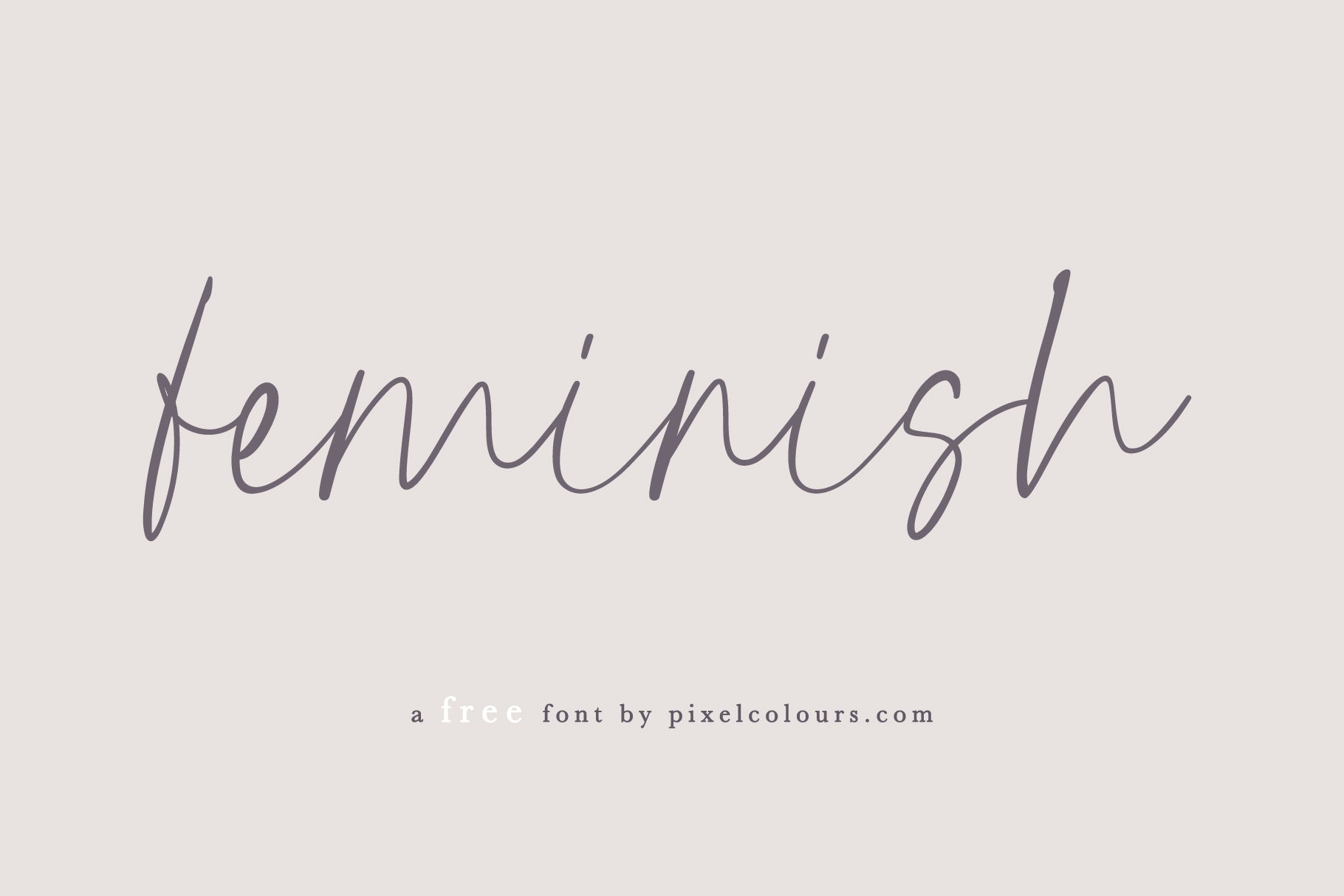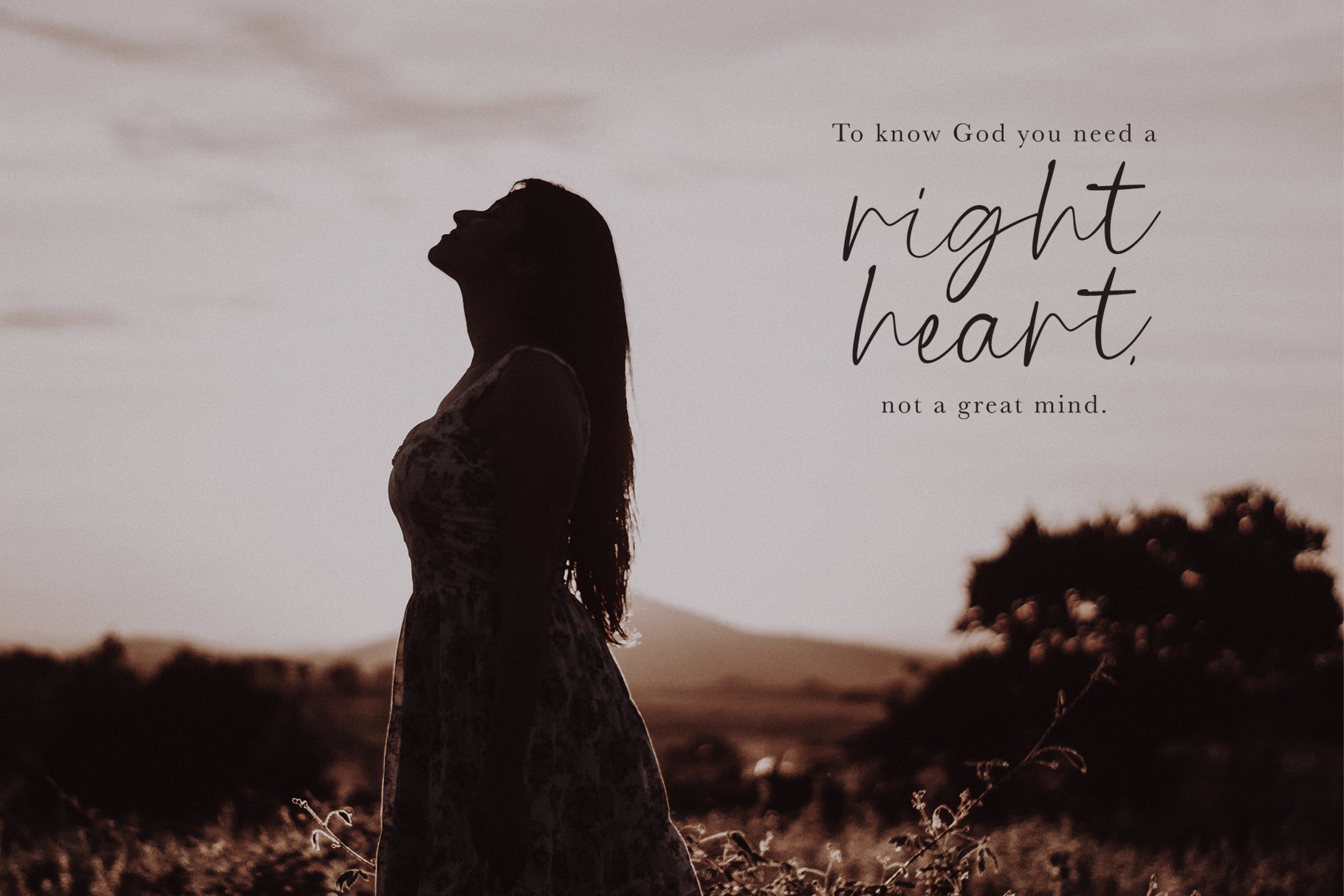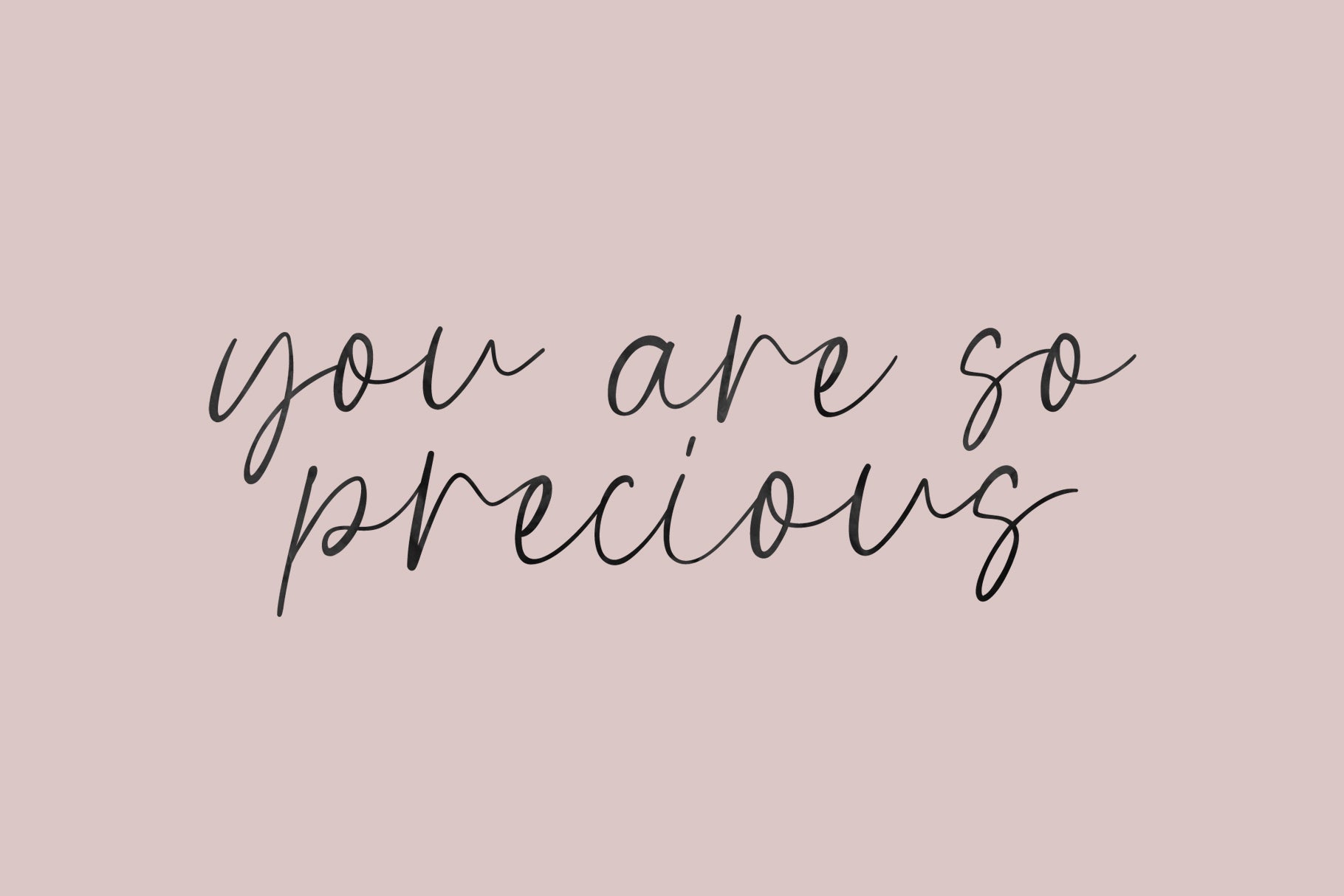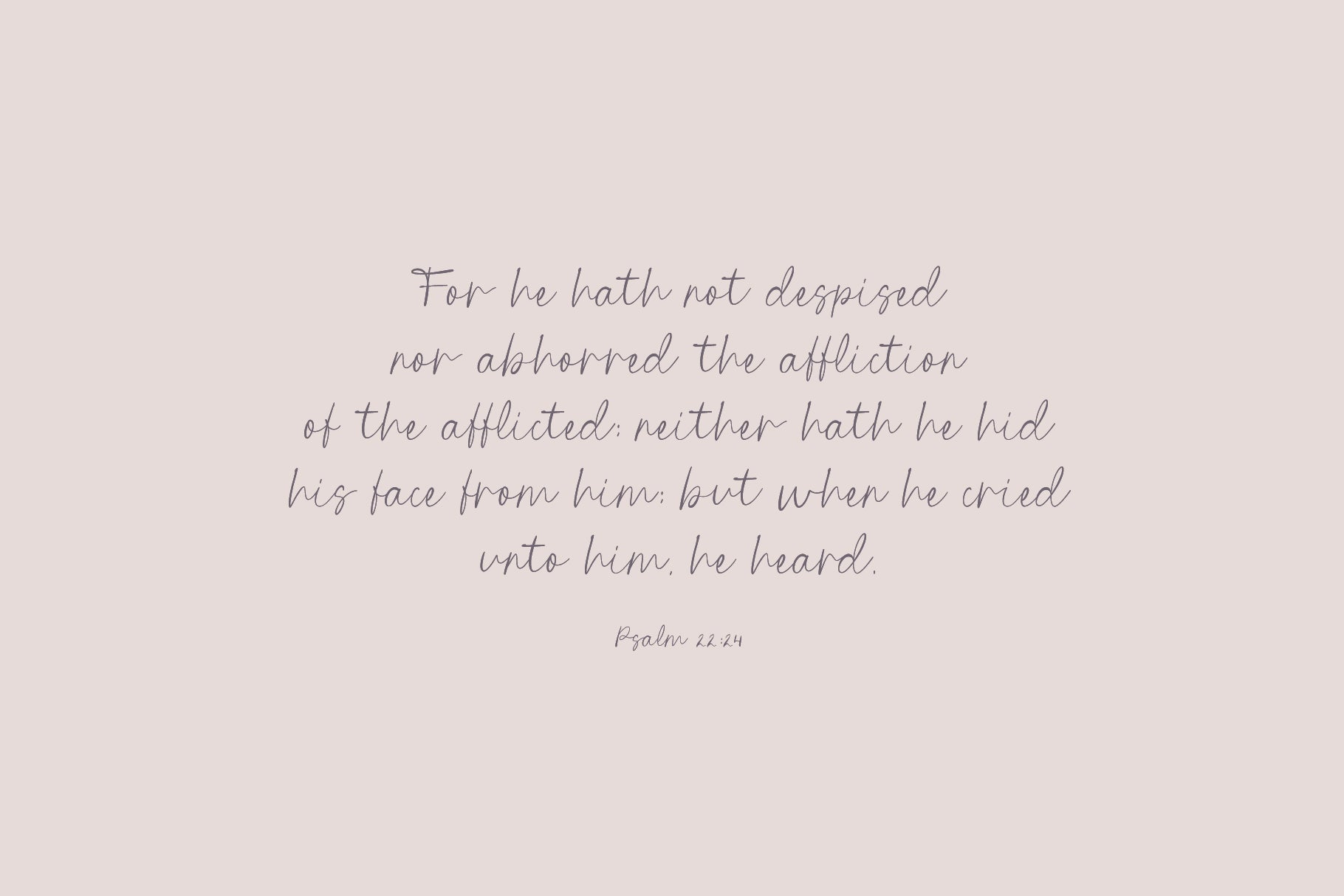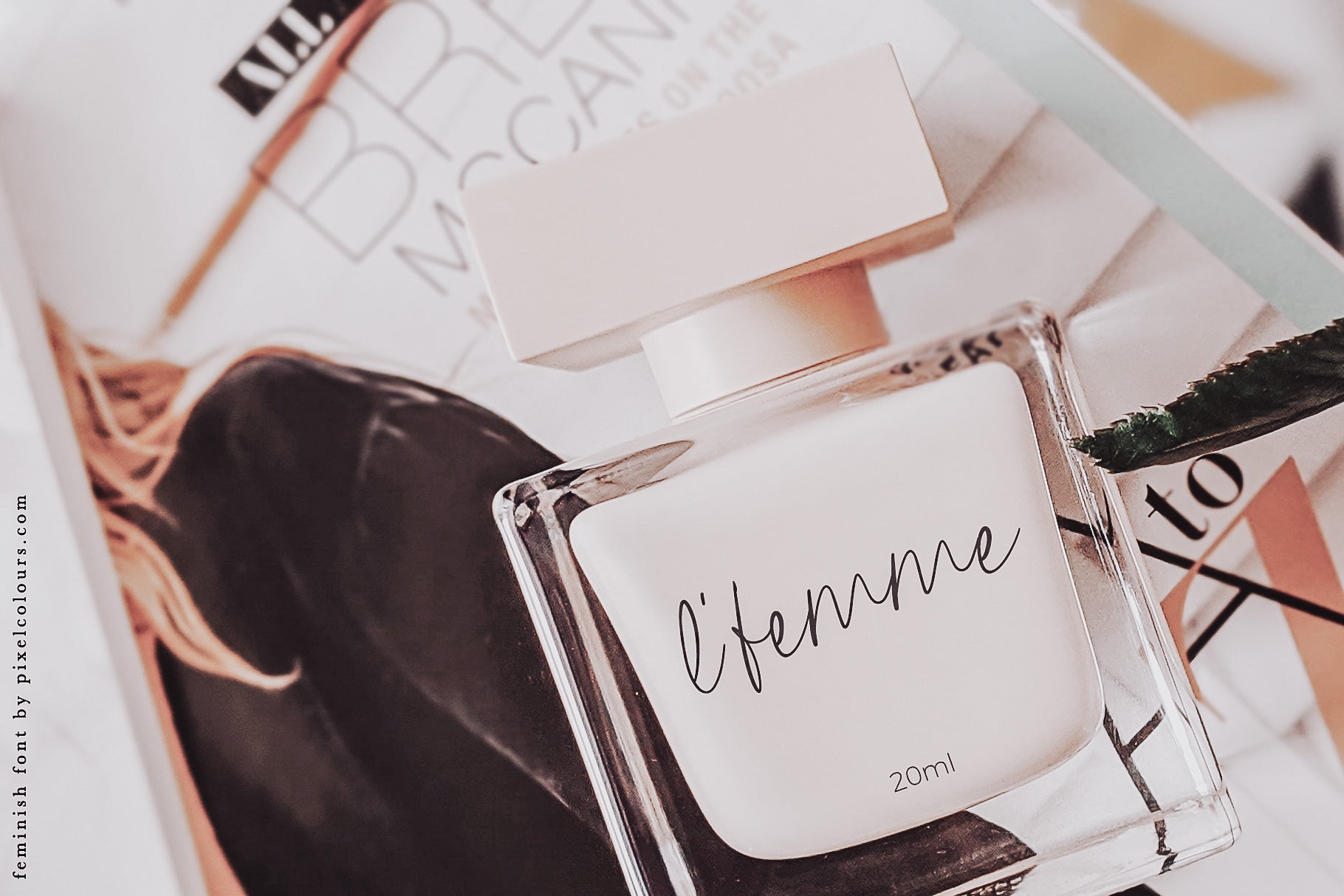
Free Feminish Font
Feminish is a free modern script font with a feminine and chic style, perfect for adding a handwritten feel to your designs. With its elegant curves and smooth flow, this free cursive font lets you create beautiful quotes, logos, invitations, or social media graphics that look like authentic handwriting fonts.
Whether you're designing for personal or commercial use, Feminish is a versatile free font that brings charm and sophistication to your projects.
Ideas for use
- Inspirational quotes for Instagram or Pinterest
- Wedding invitations or thank you cards
- Feminine branding, logos, or packaging
- Product labels or gift tags
- Journals, planners, or printable wall art